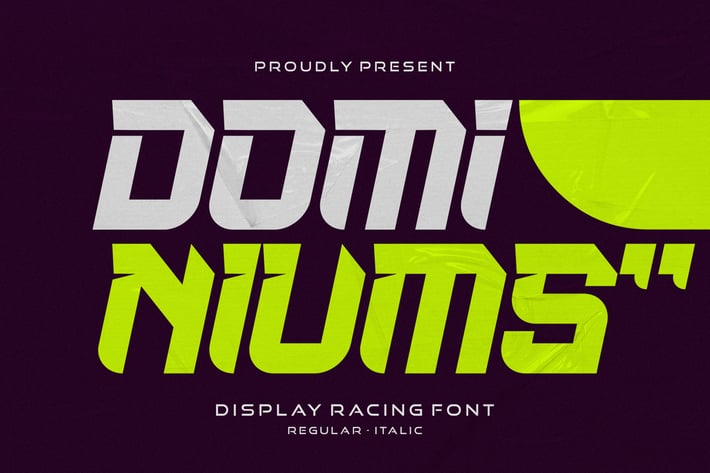
Dominiums - Racing Display Font
Dominiums is a high-octane racing display font designed to infuse speed and power into your projects. With its sleek, angular design and bold lines, this font is built for adrenaline-filled designs that demand attention.
🏎️ Speed & Precision: Inspired by the thrill of the race, Dominiums captures the essence of fast-paced motion and precision. Its sharp, dynamic lettering is perfect for designs related to motorsports, car brands, or anything that needs a touch of high-speed energy.
🚩 Versatile & Impactful: Whether you're creating logos, posters, or merchandise, Dominiums offers a commanding presence. The font’s striking design ensures that your message is clear and impactful, leaving a lasting impression on your audience.
Dominiums is more than just a racing font—it's a statement of power and speed, making it the ideal choice for anyone looking to rev up their designs with a bold, energetic edge.